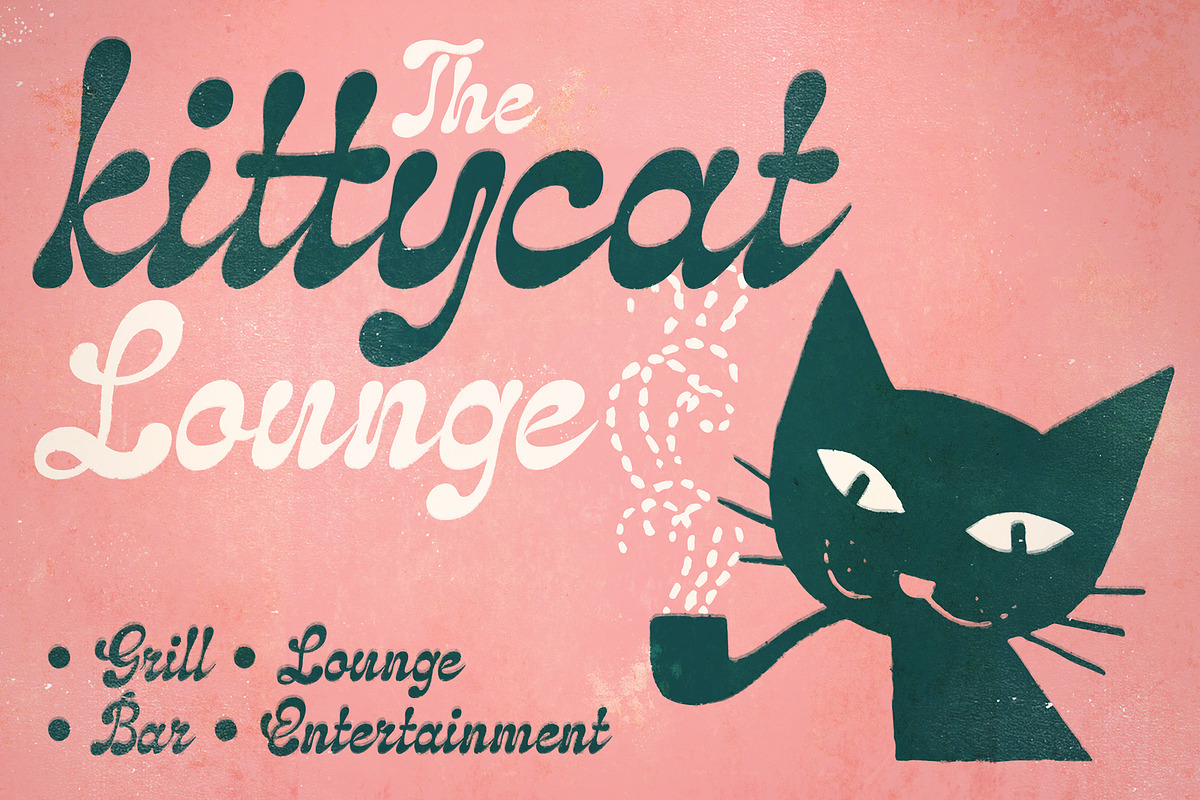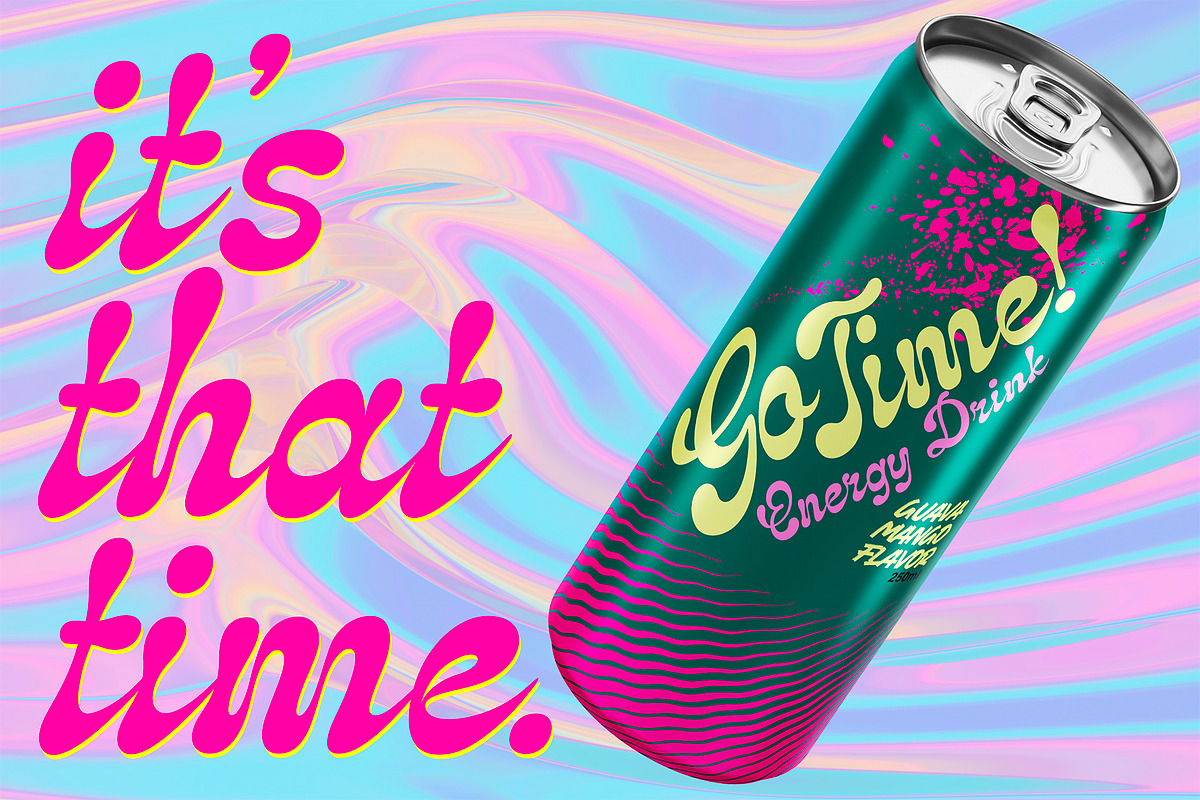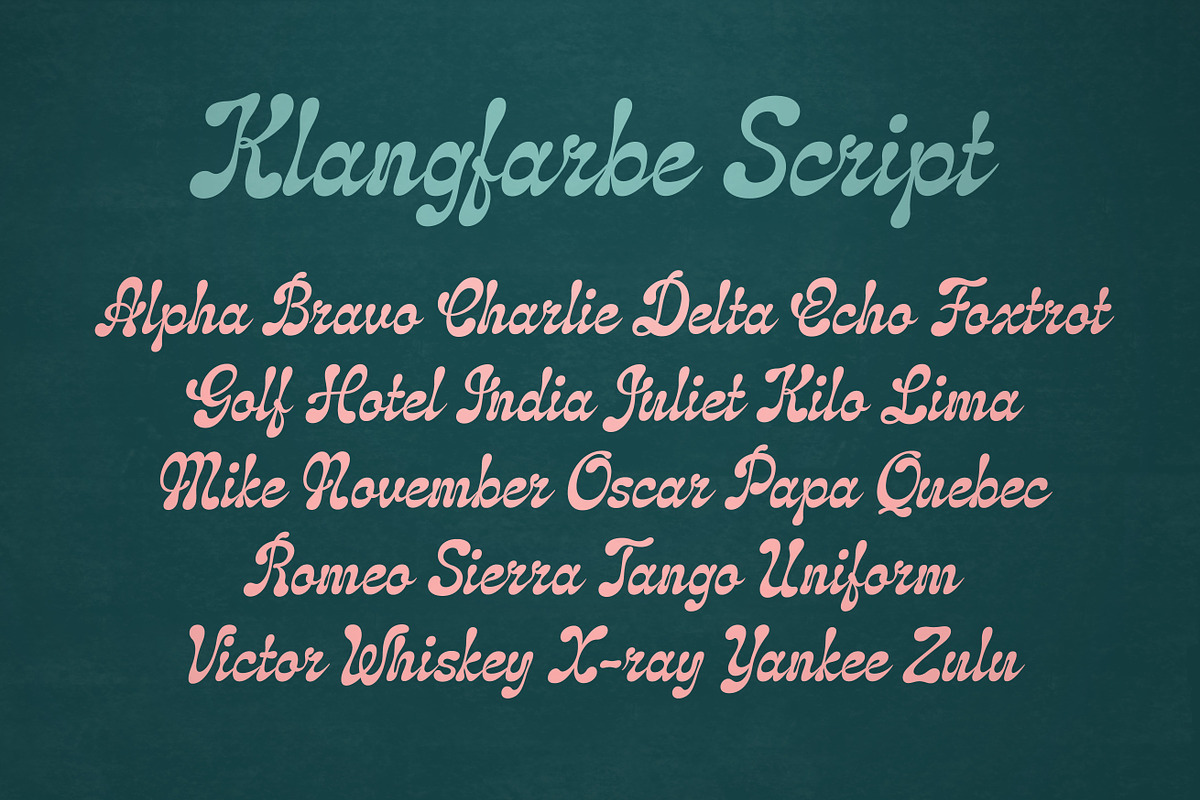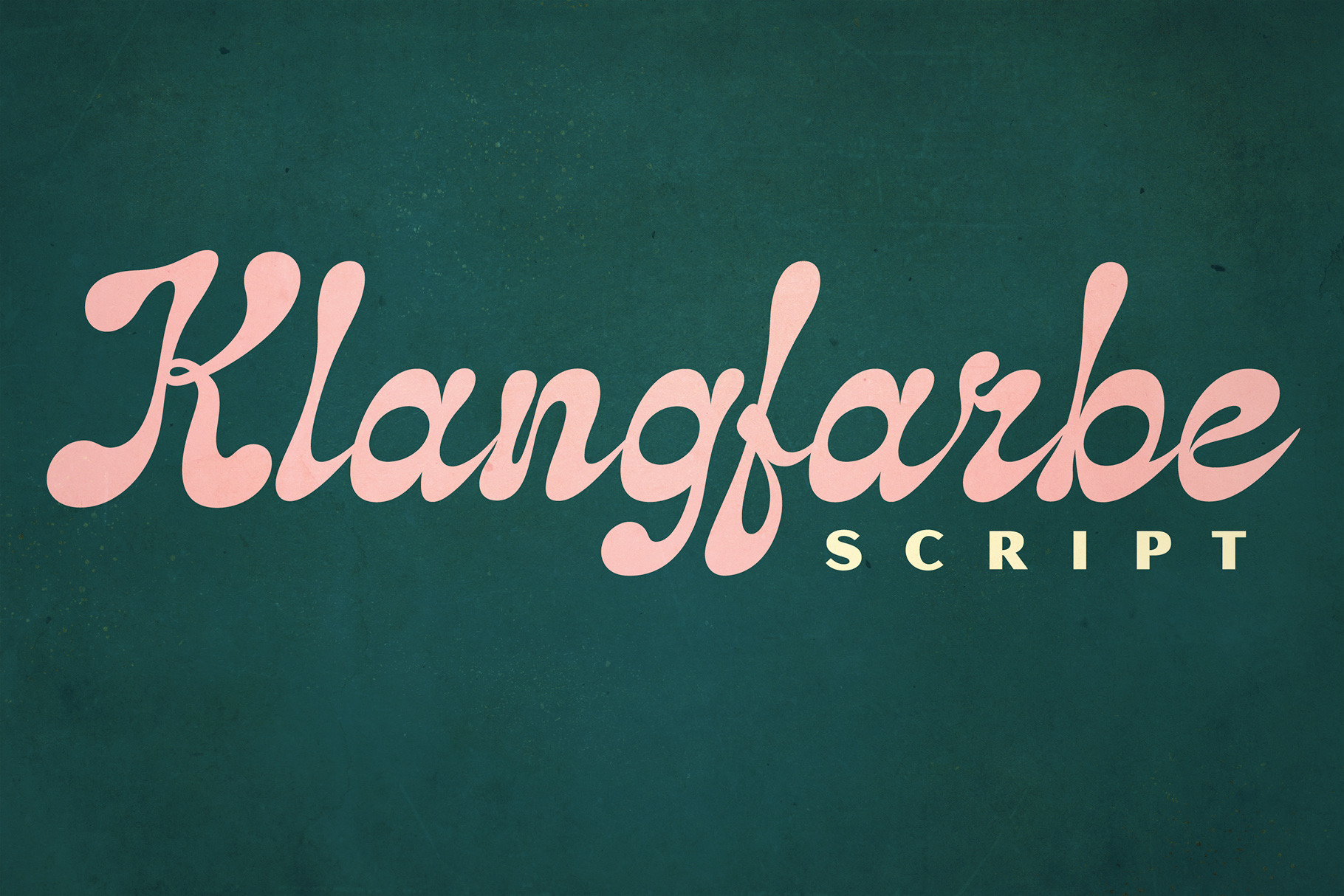
Klangfarbe Script Font
At once modern and retro, Klangfarbe Script is super versatile and is equally at home in graphics for 1950s kitsch, homespun product branding, classic vintage audio logotypes, high end personal products, quirky cartoon logos, and much more. Klangfarbe is a German language term meaning "timbre" or "tonal color."